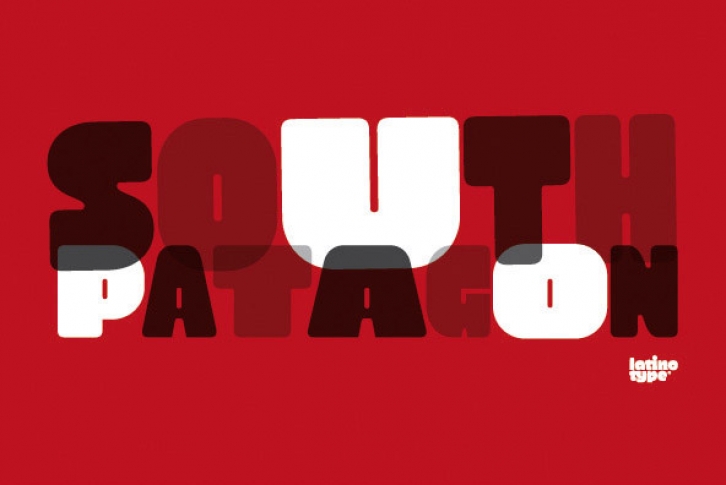
Patagon is a Contemporary Woodtype Sans typeface specially designed for fresh, high impact sentences with a mix of flavored features. Its uppercase opentype ornamental alternates glyphs provide great elegant textures adding versatility to the three weight family: condensed, regular & extended. Mix them up to get really cool designs!